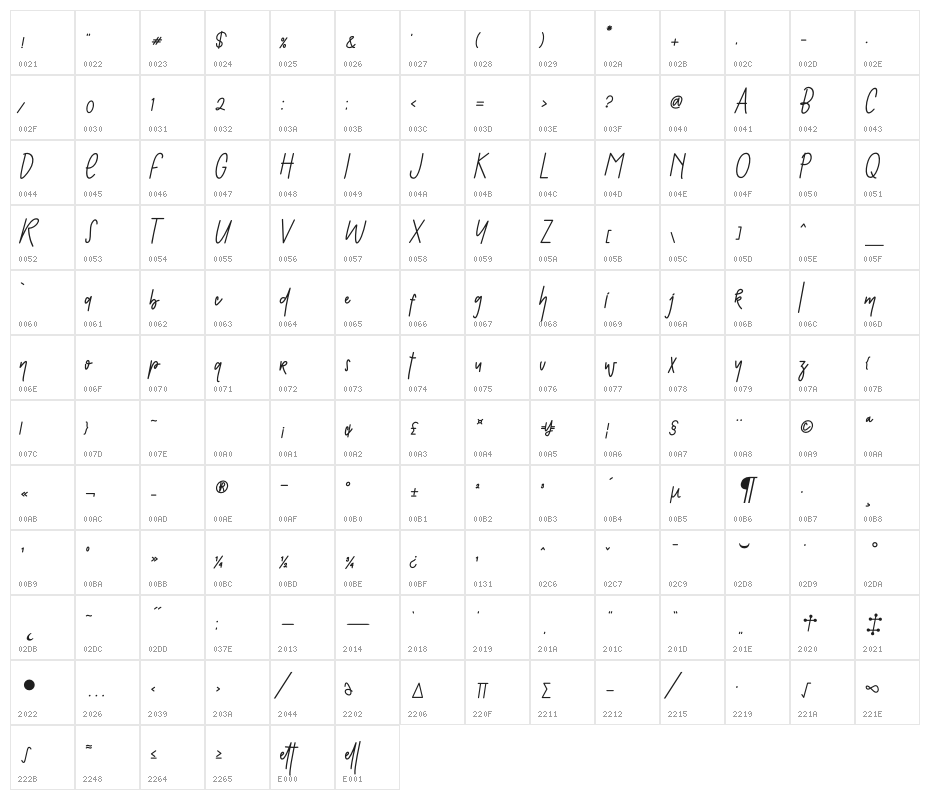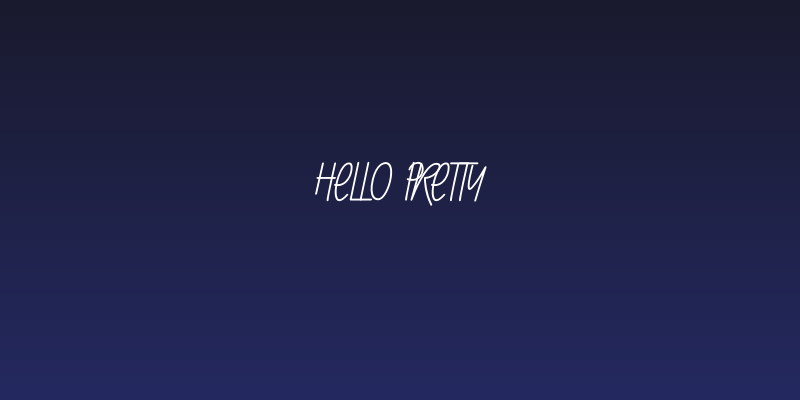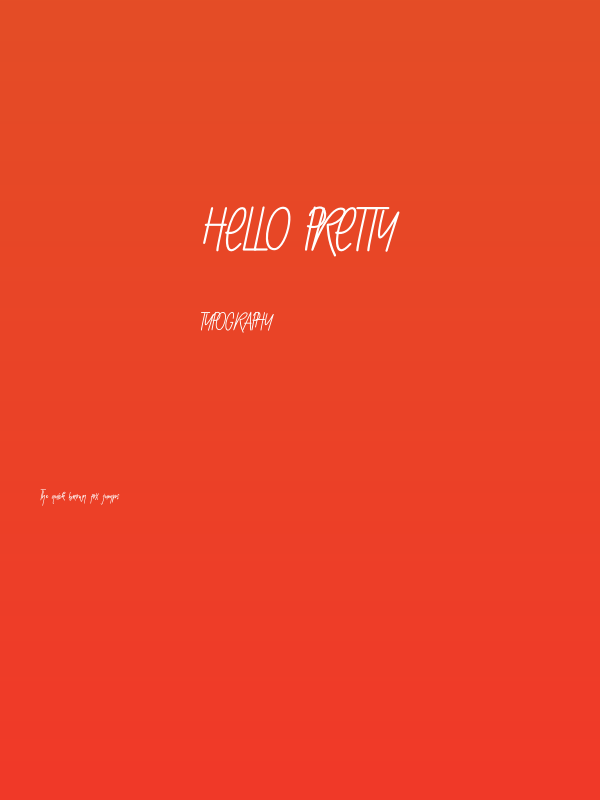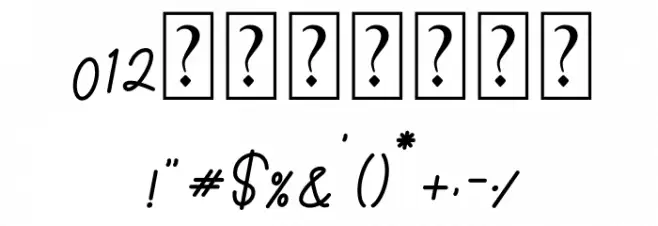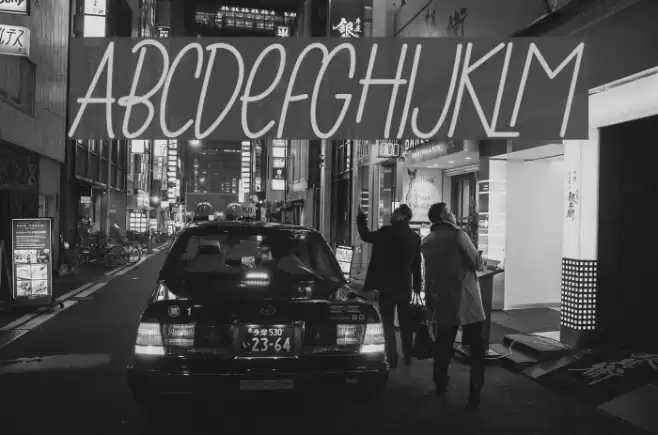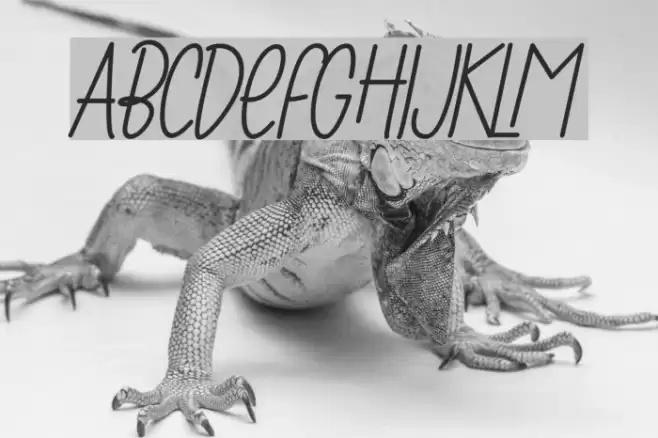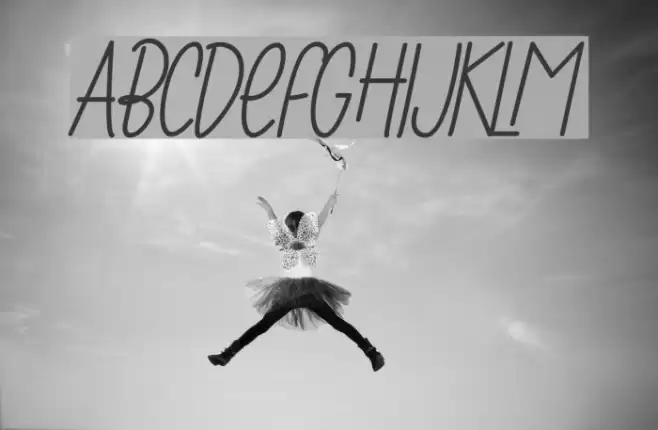
Hello Pretty Font
Hello Pretty Description
This font features a playful and energetic handwritten style, characterized by its tall, narrow letters and slight slant. The uppercase and lowercase letters maintain a consistent flow, with smooth curves and a casual elegance. The numbers and special characters are designed to match the overall aesthetic, providing a cohesive look. The font's unique personality makes it suitable for creative and informal projects, adding a touch of whimsy and charm.
| Width | Condensed |
| Overall Style | Casual, Playful |
| Use Case | Headlines, Logos, Invitations |
| Proposed Projects | Ideal for greeting cards, invitations, personal branding, and creative projects. |